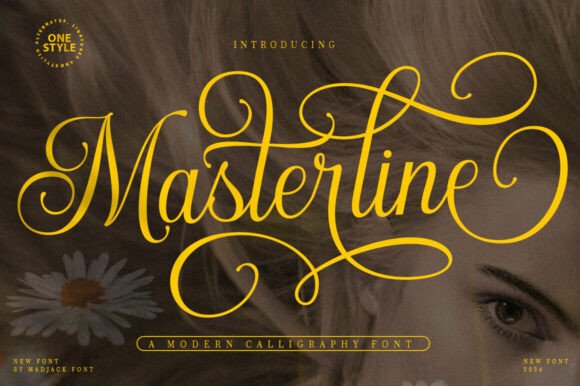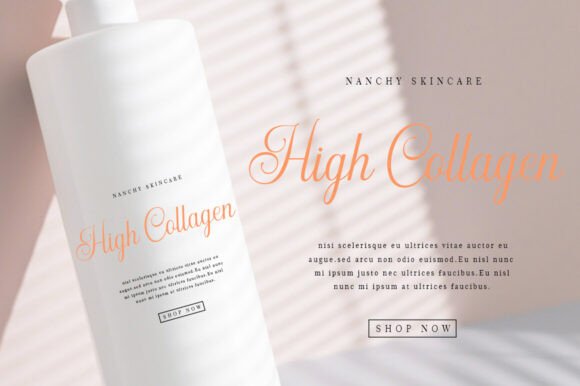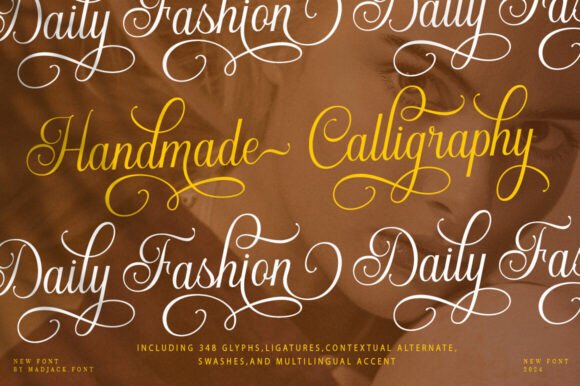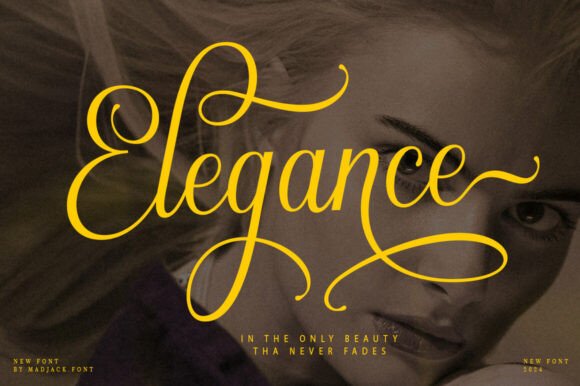
Masterline Calligraphy Font
About the Masterline Calligraphy Font
The wait is over! The incredible Masterline Calligraphy Font is now available for your design toolkit. Masterline Calligraphy font is a modern calligraphy design, including Regular. This font is casual and beautiful with swashes. It can be used for various purposes, such as logos, product packaging, wedding invitations, branding, headlines, signage, labels, signatures, book covers, posters, quotes, and more.
Masterline Calligraphy’s elegant yet casual style shines in headlines, logos, and short text blocks on packaging or invitations. Its swashes add a touch of sophistication, making it ideal for branding projects requiring a touch of handwritten charm. However, its delicate nature makes it less suitable for body text or UI elements where readability is paramount. Avoid using it for long paragraphs.
Pairing Masterline Calligraphy with a clean sans-serif like Montserrat for body text creates a balanced and professional look. For a more playful feel, consider pairing it with a geometric sans-serif such as Futura. A subtle serif like Playfair Display could also complement its calligraphic elegance for a more traditional approach.
The overall personality of Masterline Calligraphy is sophisticated yet approachable; modern but with a timeless quality. It’s best suited for brands conveying elegance, creativity, or a handcrafted feel.
Masterline Calligraphy Font Usage Examples
Masterline Calligraphy Font Example